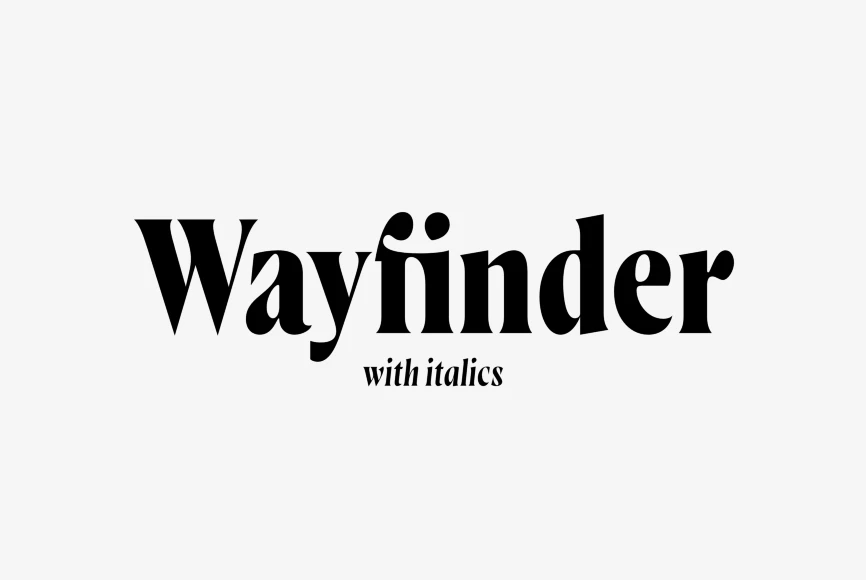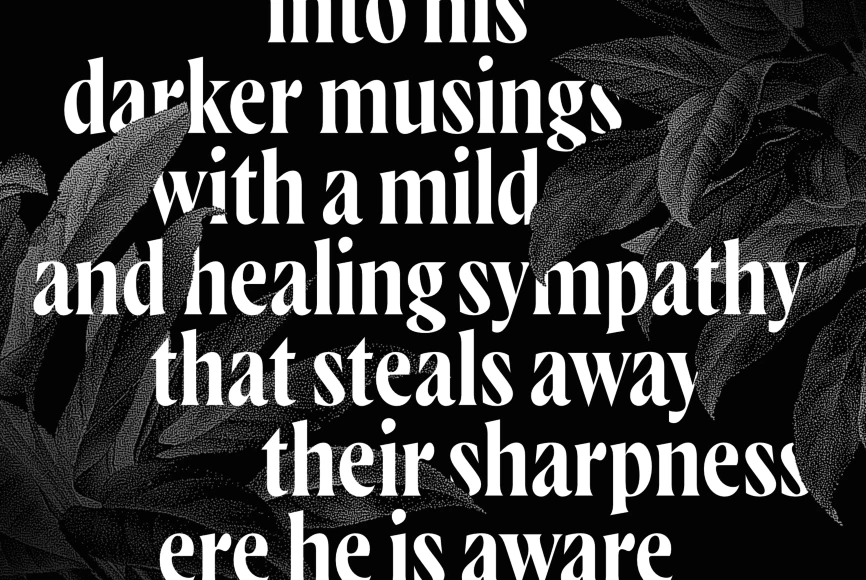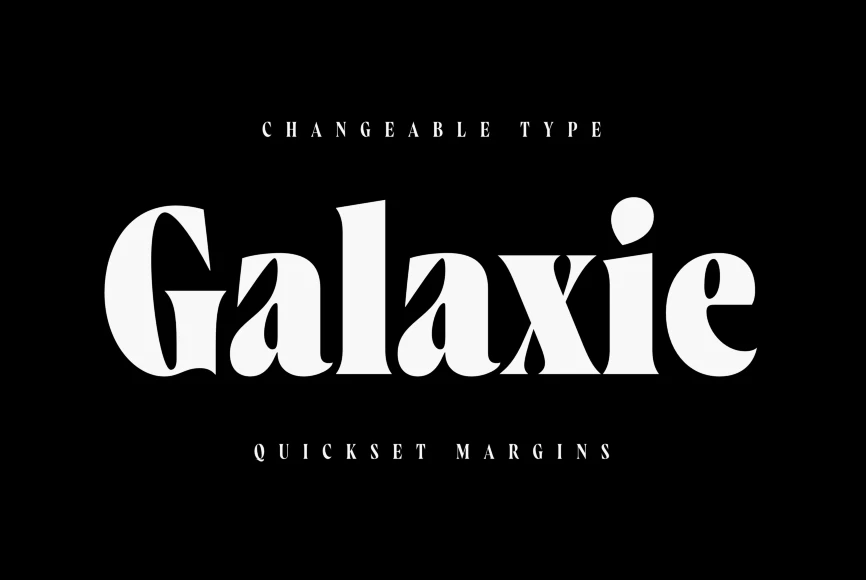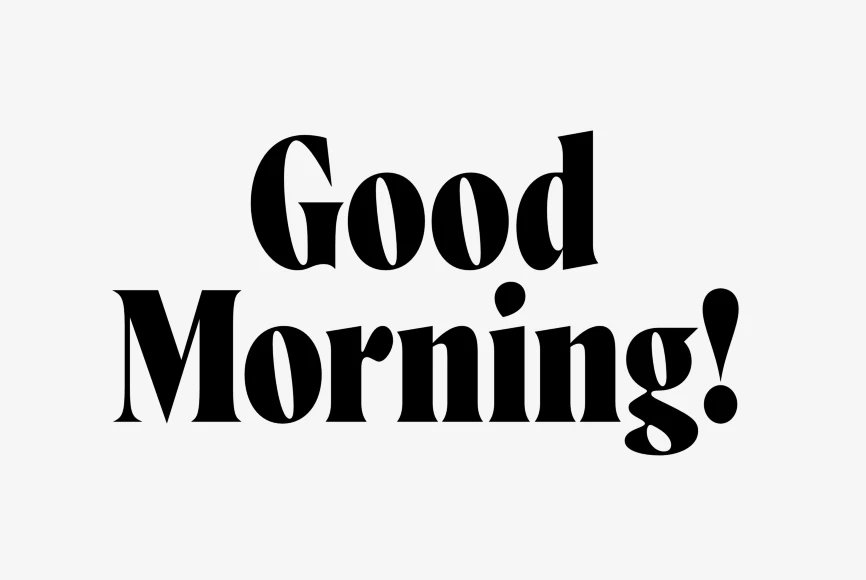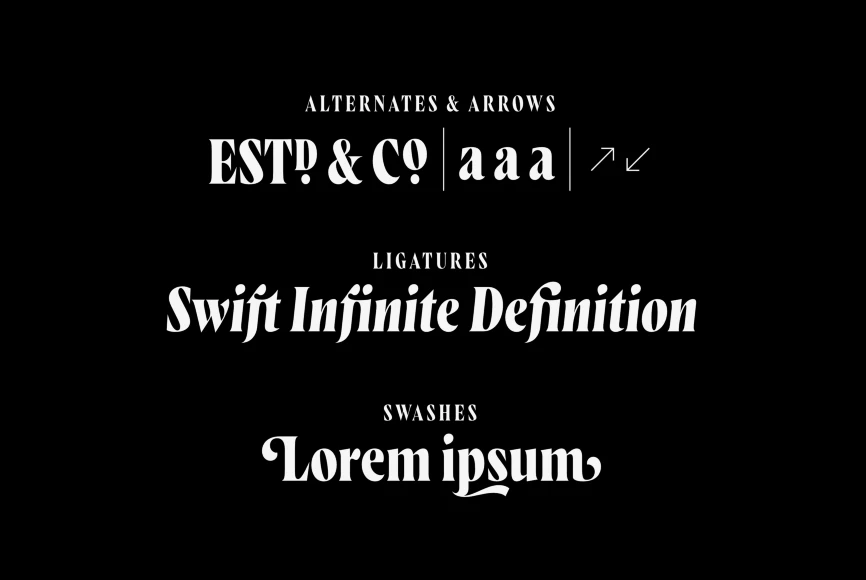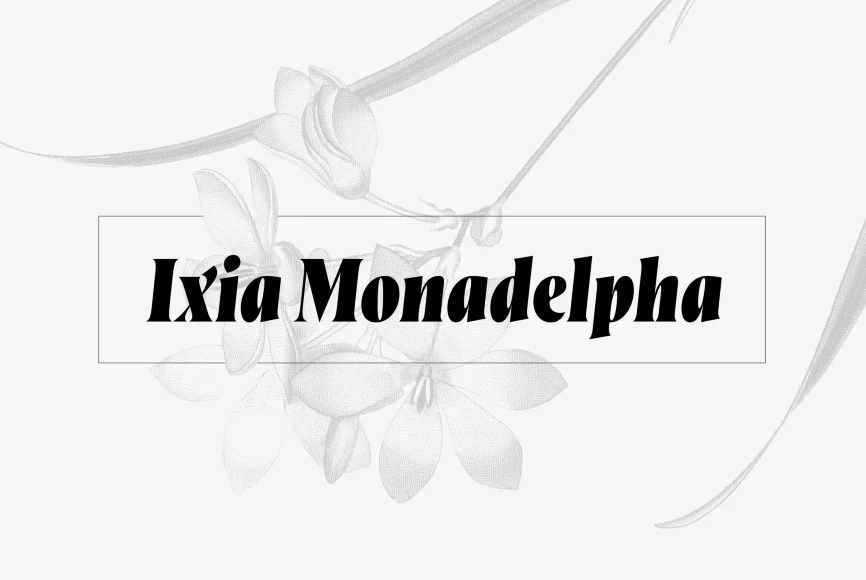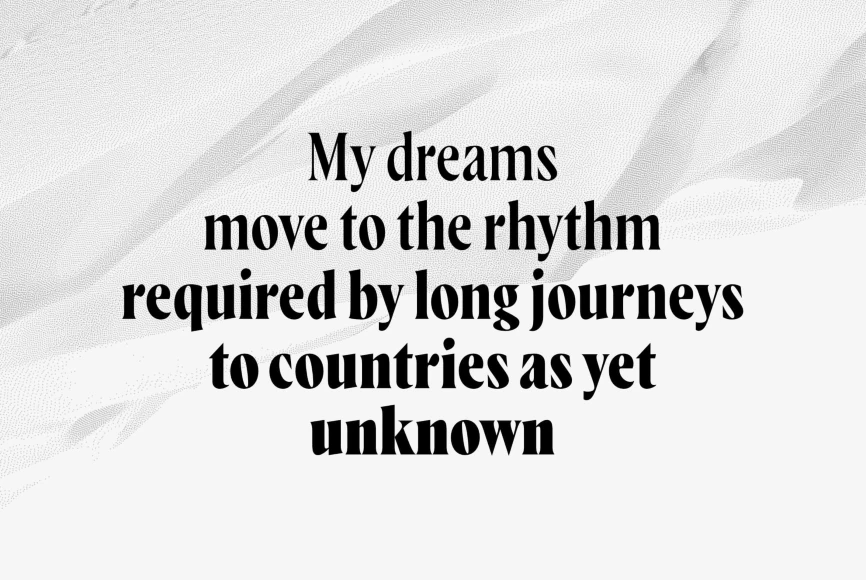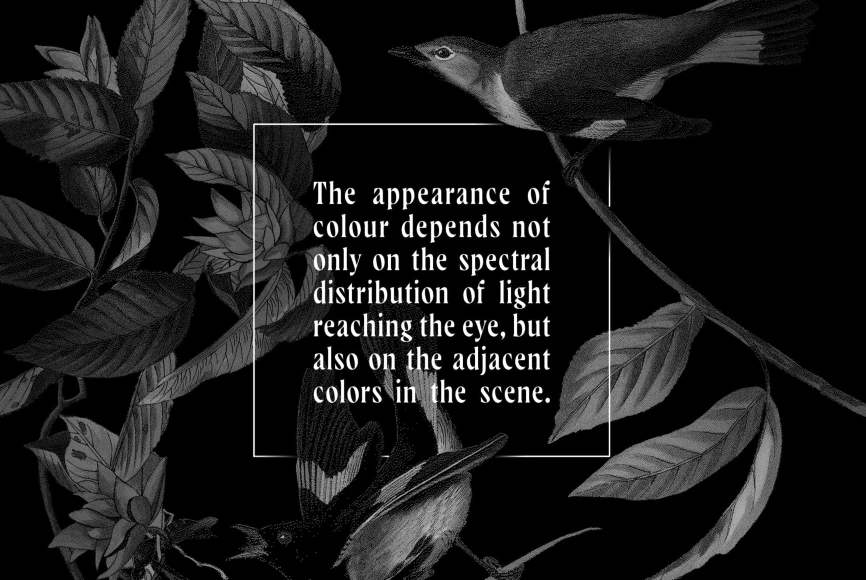
Wayfinder
From Connary Fagen Fonts
Wayfinder CF imparts both elegance and urgency to any text. Equally warm and intense, Wayfinder is a display font family made for logos, headlines, titles, and other short texts. Seven weights cover everything from an airy thin to a brilliant heavyweight.
Designed by Connary Fagen